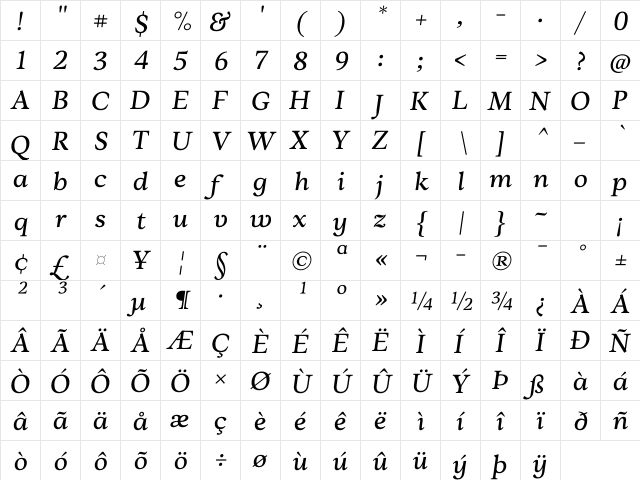
MuseeItalic Regular
Design Context for MuseeItalic Typeface
MuseeItalic is a composed and adaptable typeface that performs quietly and consistently across a wide range of design contexts. The slanted form adds forward momentum and visual energy.
Pro Tip: Try MuseeItalic for annotation and caption copy alongside an upright companion — the contrast in angle creates a dynamic but ordered typographic system.